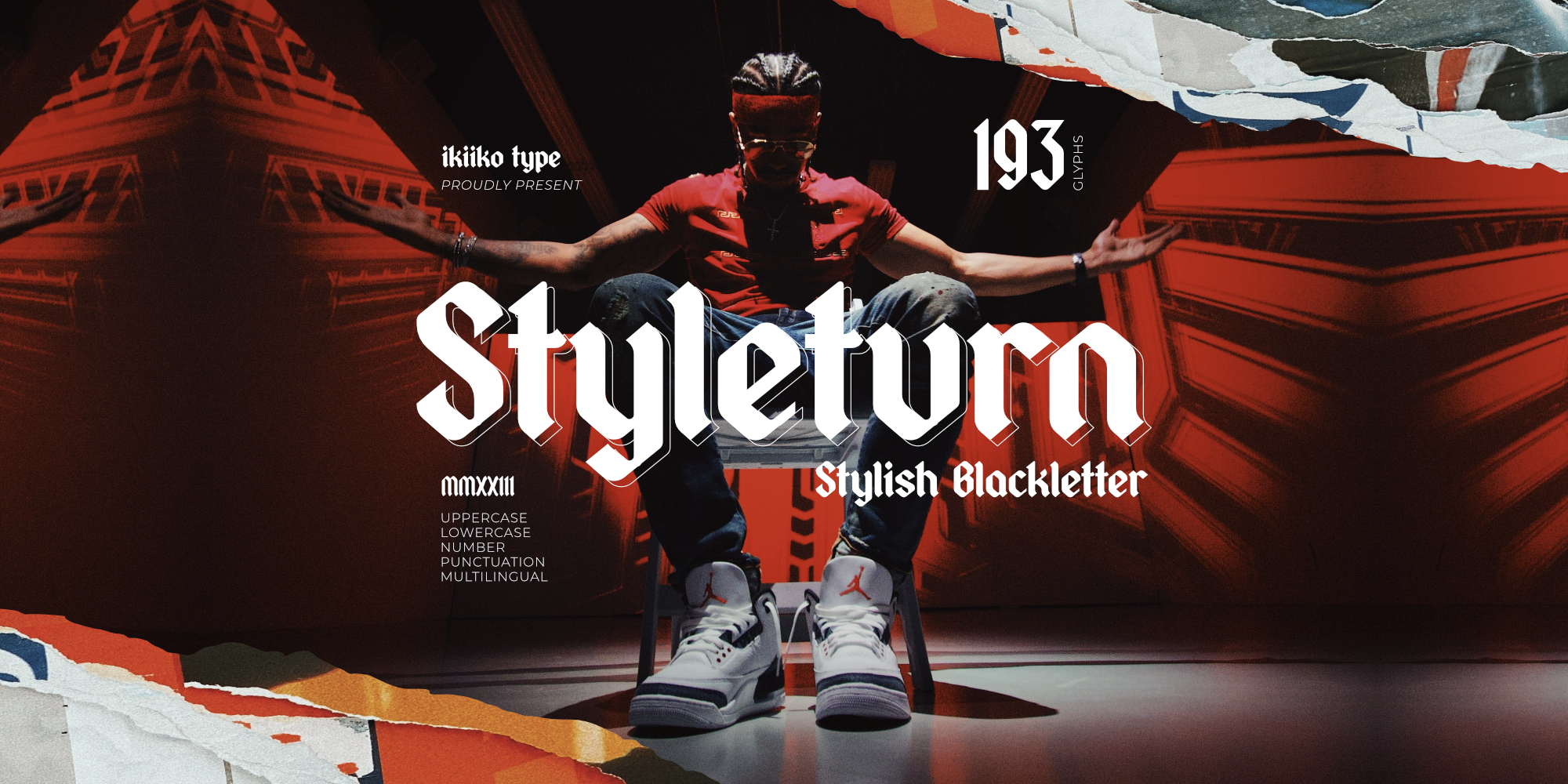
Styleturn Font is perfect for fashion transformation campaigns, style makeover television shows, trendy boutique branding, fashion blog headers, style consultant portfolios, wardrobe renewal promotions, contemporary fashion magazines, personal styling services, fashion revolution marketing, and dynamic clothing brand identities. Its transformative character makes it ideal for projects requiring style evolution and fashion innovation representation.
What makes Styleturn Font exciting is its dynamic embodiment of fashion transformation and style evolution with fluid letterforms and adaptable characteristics that capture the essence of personal reinvention and fashion-forward thinking. The font features flowing transitions, stylistic variations, and contemporary character construction that create fashionable atmosphere and trendsetting appeal. Its transformative personality brings innovation and style consciousness to contemporary designs while maintaining the sophistication essential for fashion communications and style presentations. The carefully crafted dynamic elements ensure visual fluidity while preserving the distinctive character that embodies the essence of fashion evolution and style transformation excellence.
Styleturn Font comes in multiple stylistic variations including Light, Regular, Bold, Italic, and Fashion styles. Each family member maintains the distinctive transformative character while offering comprehensive flexibility for fashion typography and style brand system development. The complete font family includes stylistic alternates, fashion symbols, and contemporary punctuation marks that enhance the trendy aesthetic and provide essential tools for fashion communication excellence.
Whether you're developing fashion brands, style services, or transformation projects, Styleturn Font Free Download provides the dynamic sophistication needed to communicate with style-conscious audiences and fashion enthusiasts who appreciate trendsetting innovation and personal transformation. The font's fashionable appeal resonates with stylists, fashion professionals, and trend-conscious consumers seeking authentic fashion credibility and style authority. Its comprehensive character set includes fashion symbols and style marks, making it perfect for creating complete fashion brand systems and memorable style storytelling across diverse fashion applications and transformation-focused design projects that celebrate fashion innovation and style evolution excellence.